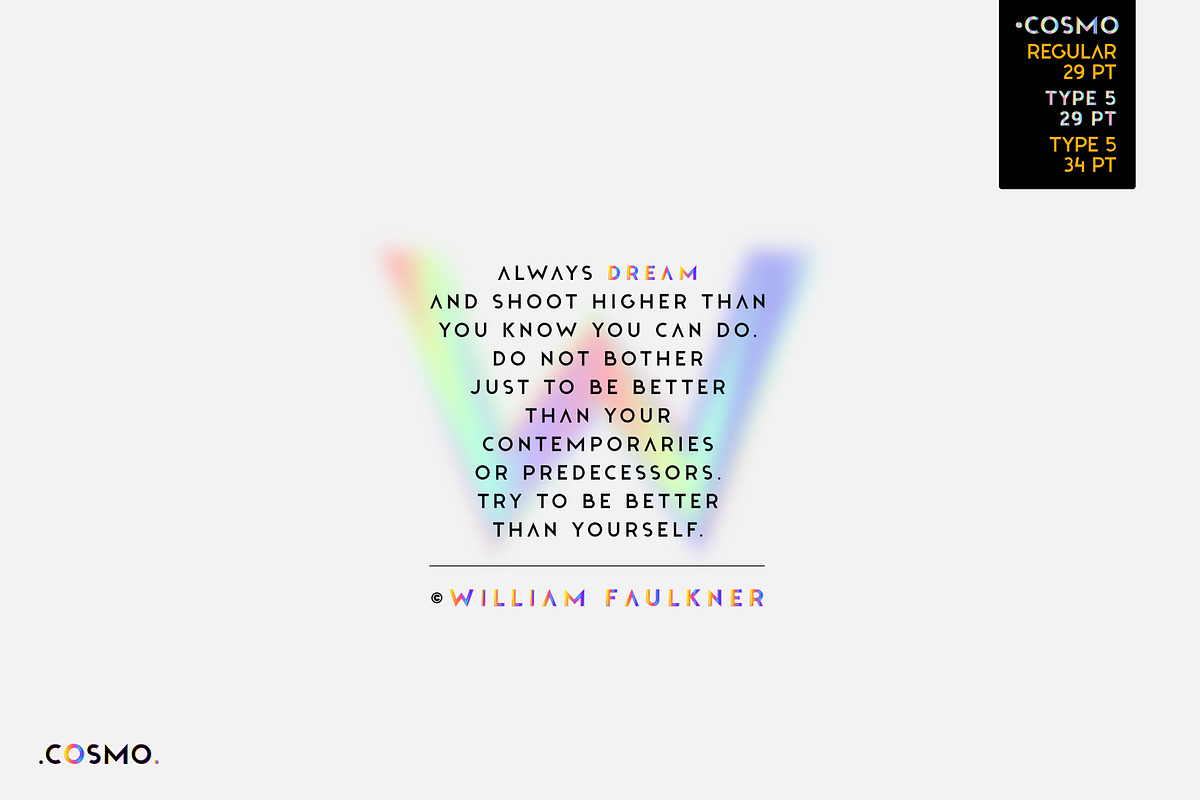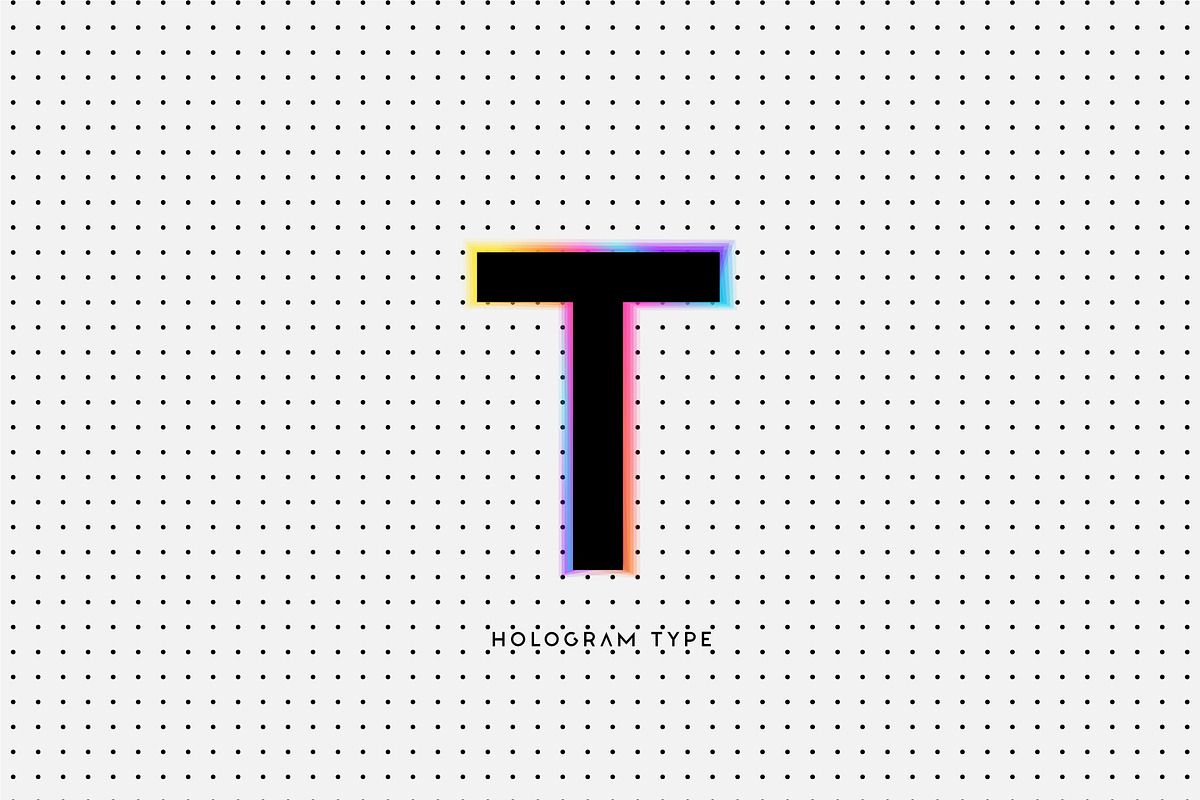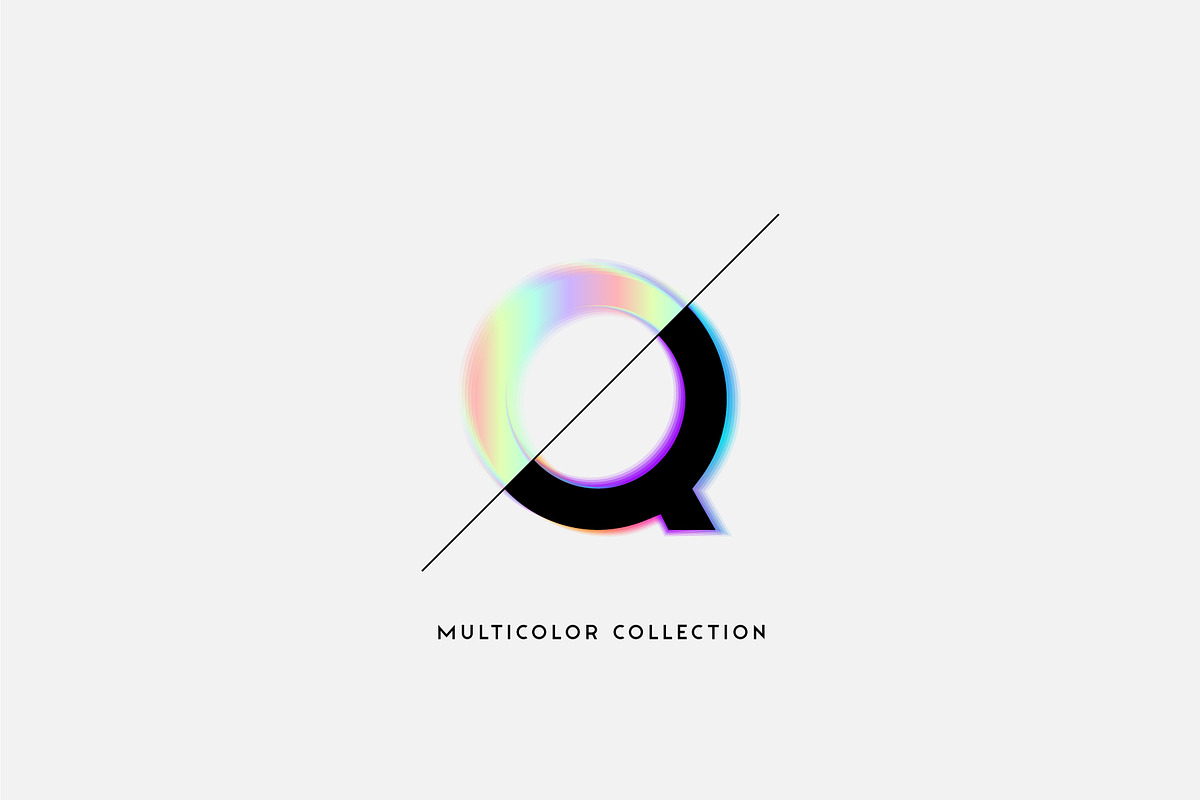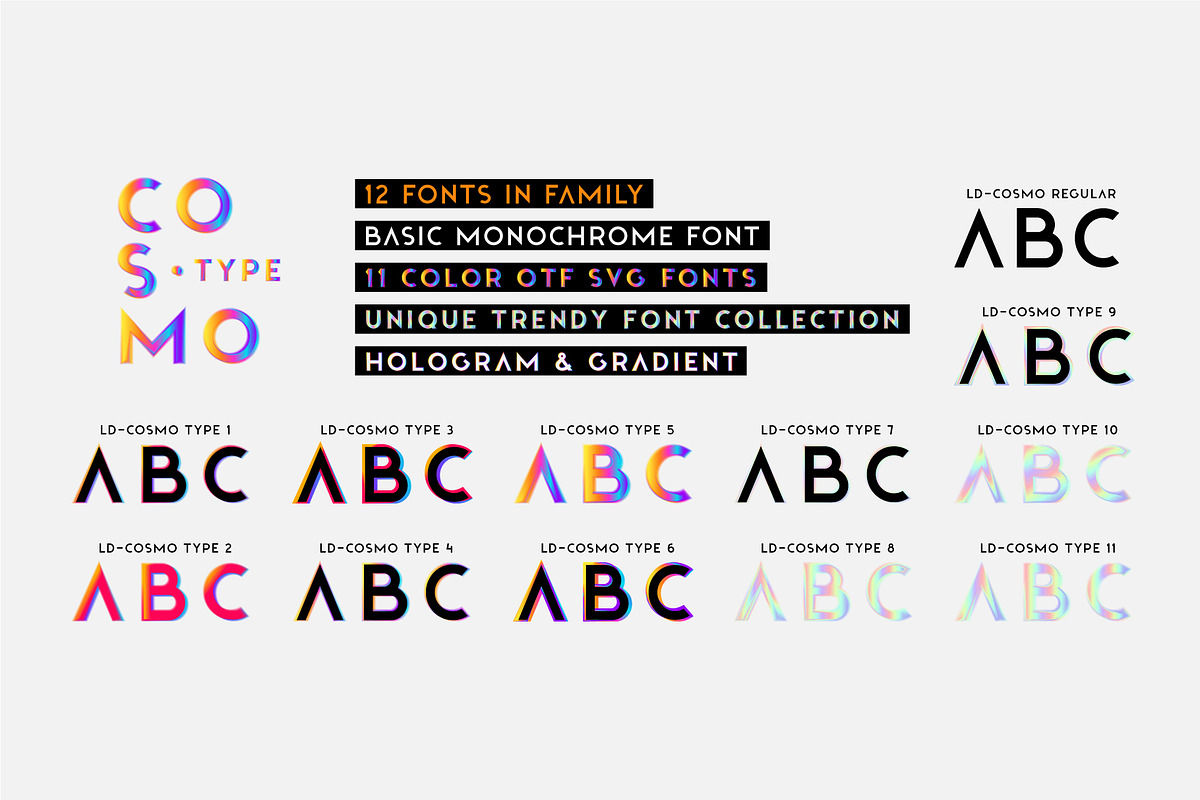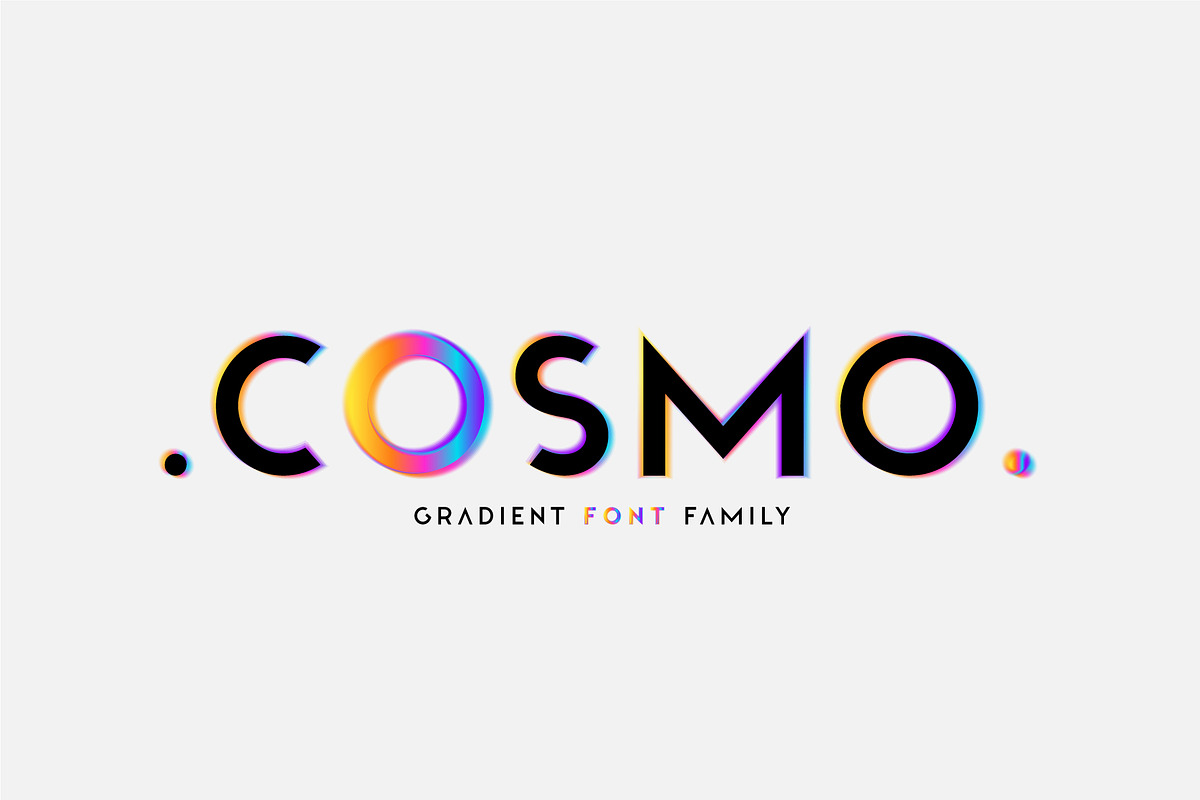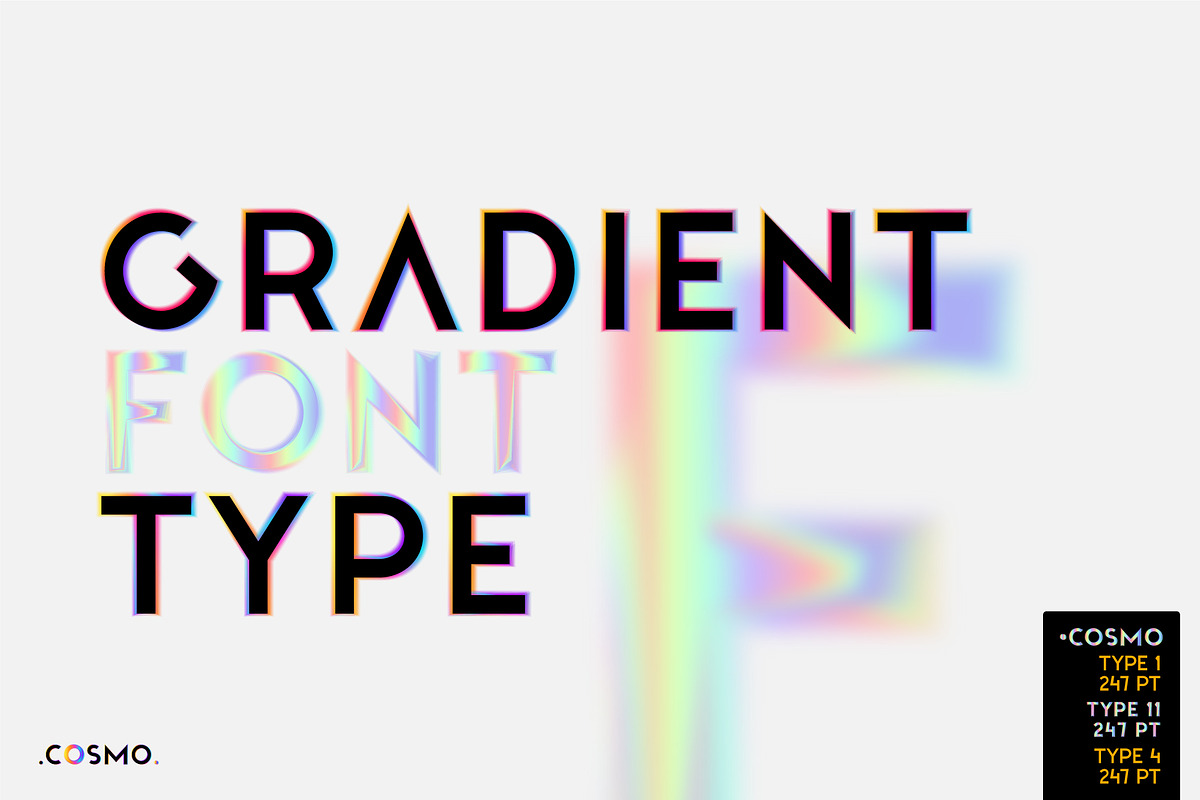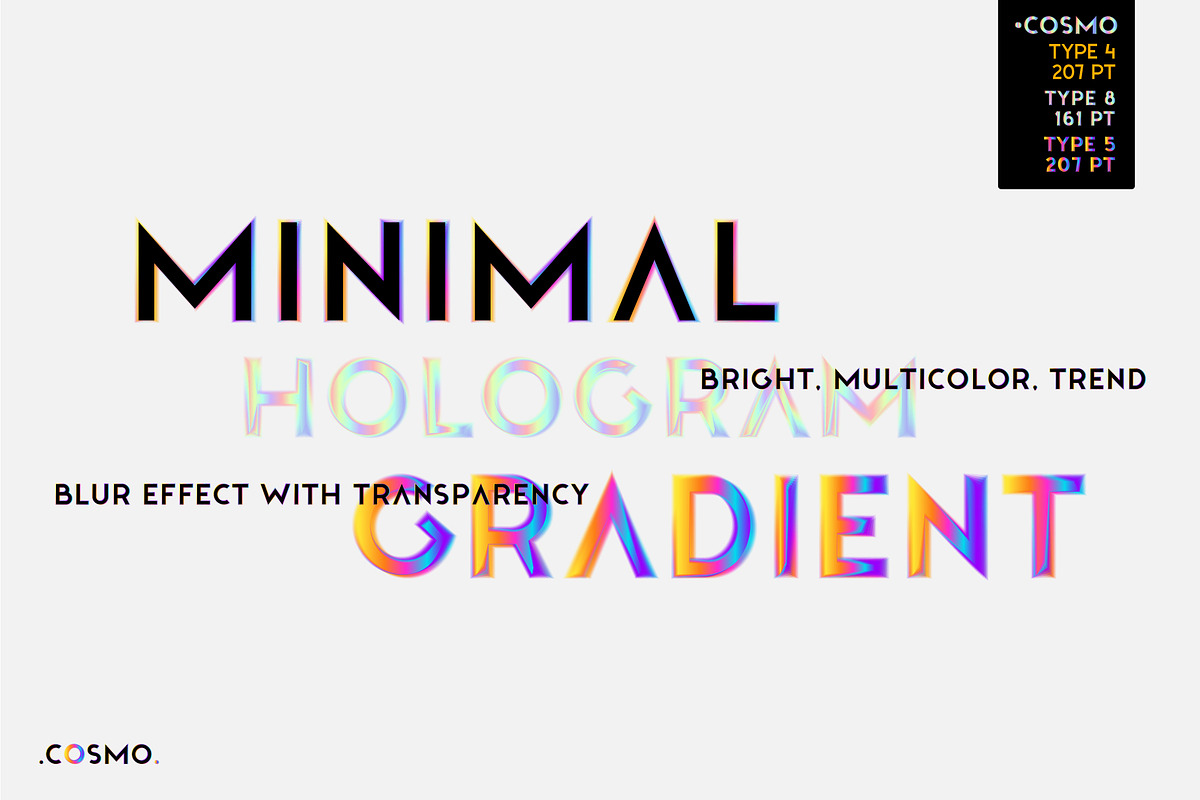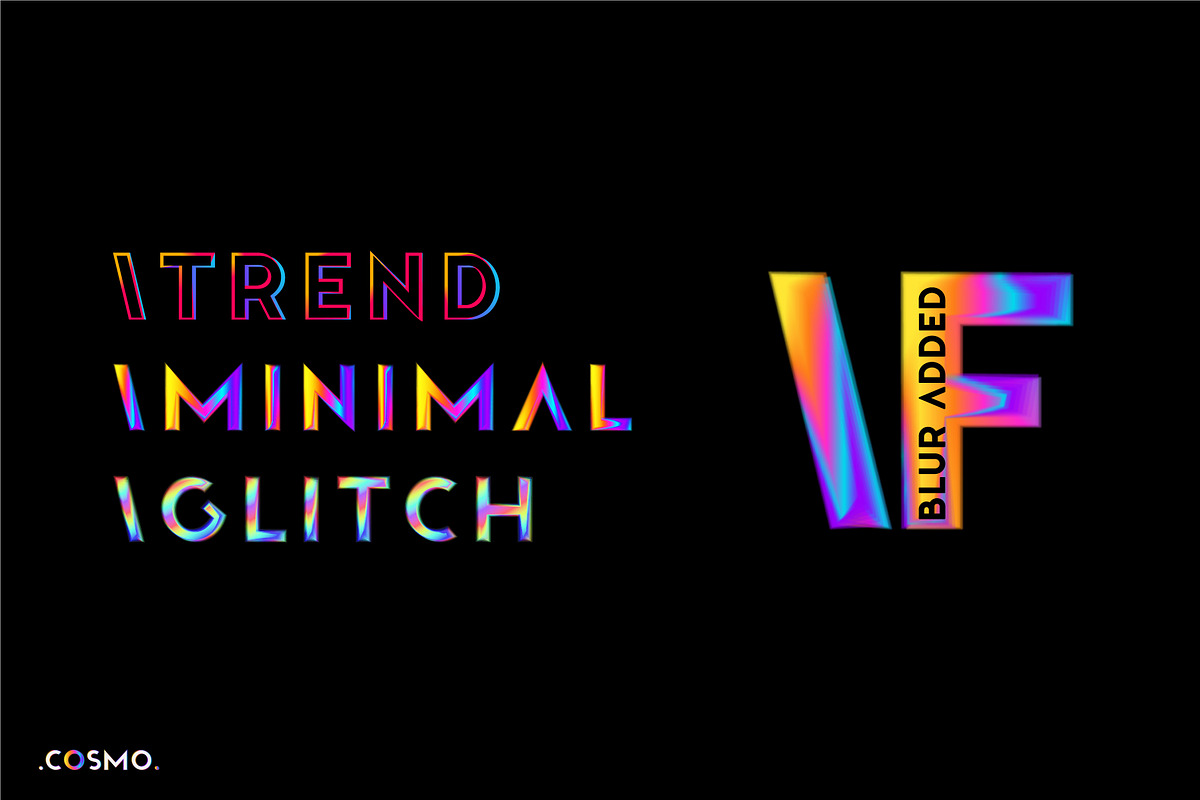
Cosmo. OTF-SVG Hologram family.
Introducing space-bright COLORED hologram font. Soft color transitions combined with minimalistic clean glyphs. Ideal for modern web and print design. Excellent readability of glyphs for both the title and the large volume of text is preserved. Multi-colored modern family with different types of coloring - highlighted gradient border of letters or fully hologram glyphs - large selection of 11 ready-made font styles + one more basic monochrome for your design freedom. Originality of the font will fit well into the fashionable logo, headline in the magazine or on the website, emphasize the trend of the product in branding and complement web advertising on social media.
- 11 OTF SVG color fonts in the family
- 1 basic OTF monochrome font
- Gradient and hologram fonts
- Kerning
- OTF SVG fonts contain vector letters with gradients and transparency.